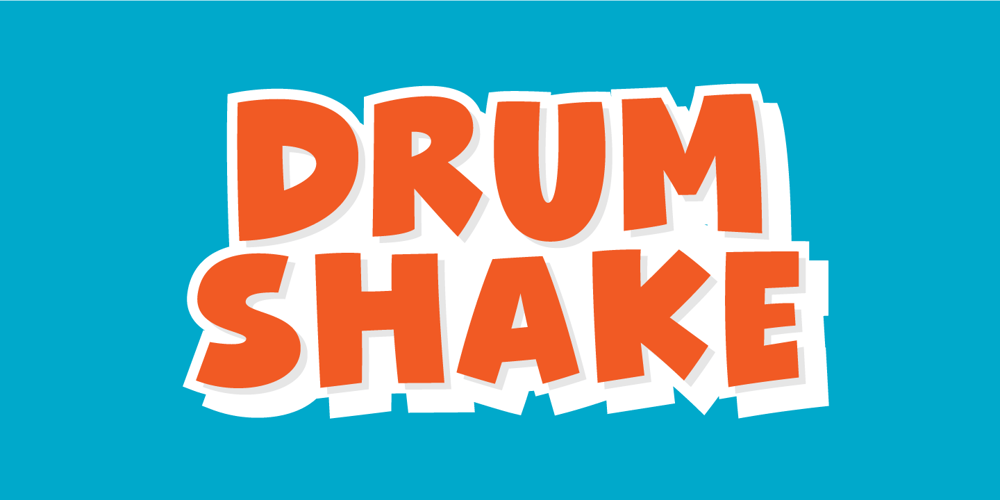
Drum Shake Font Family was designed by Jakob Fischer and published by PizzaDude.dk. Drum Shake contains 2 styles and family package options. Drum Shake is my friendly, all-caps comicbook font – ready to serve and protect your next design!